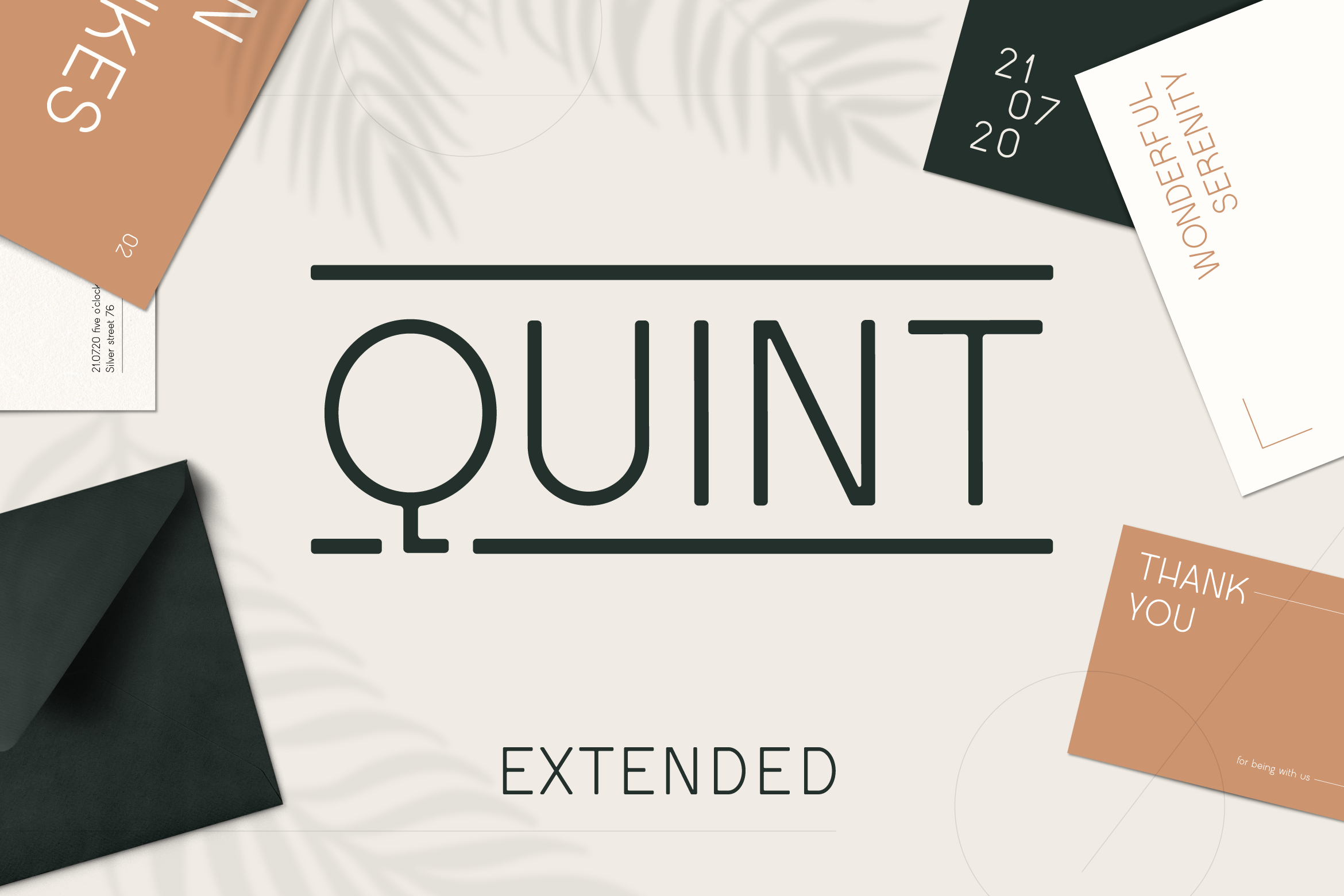
Quint Extended Font
Quint Extended font has geometric construction with round details that creates elegant letter shapes. Modern and contemporary style and retro details make it an excellent choice for headlines, logotypes, branding, posters and magazines.